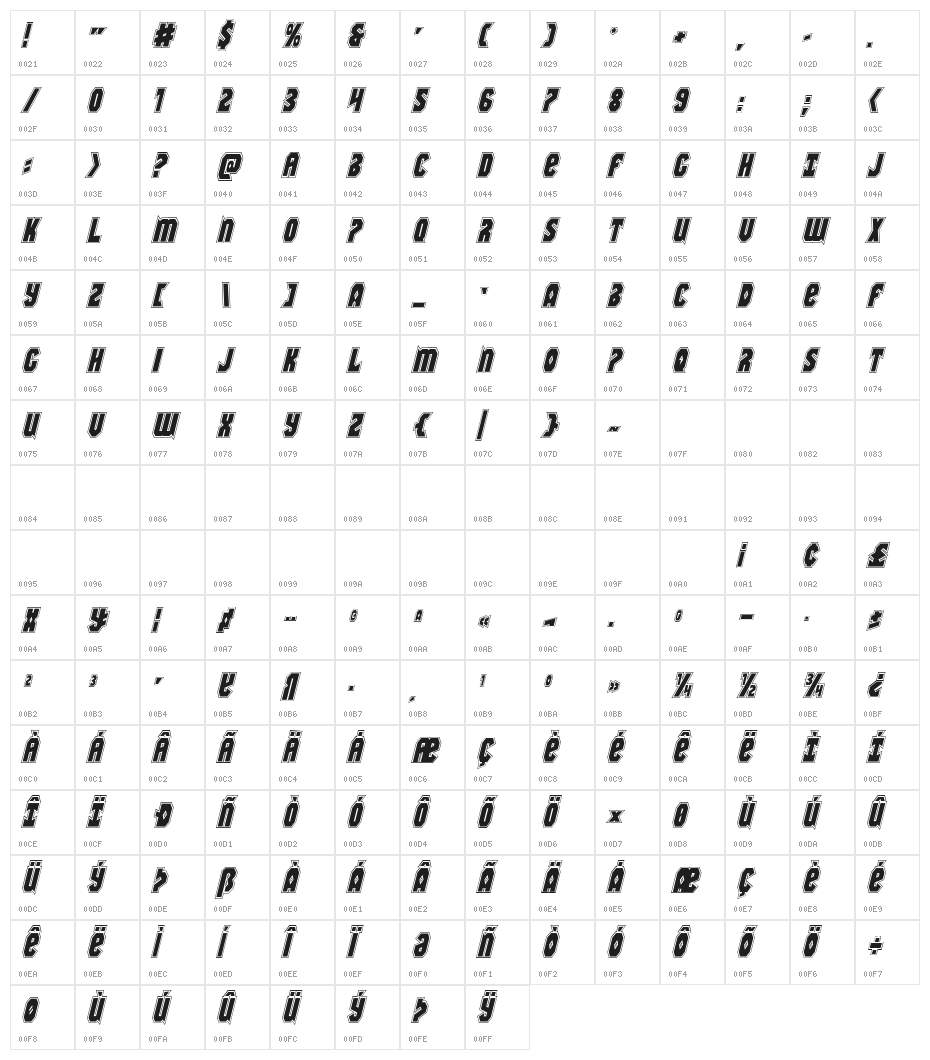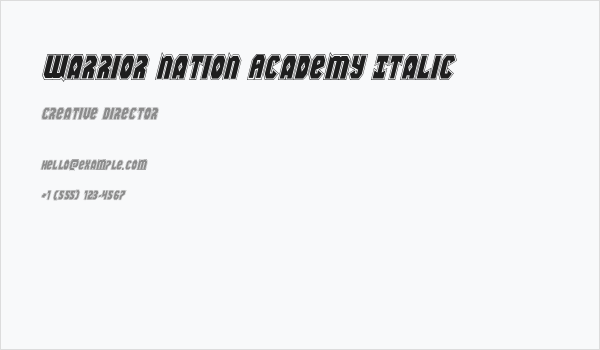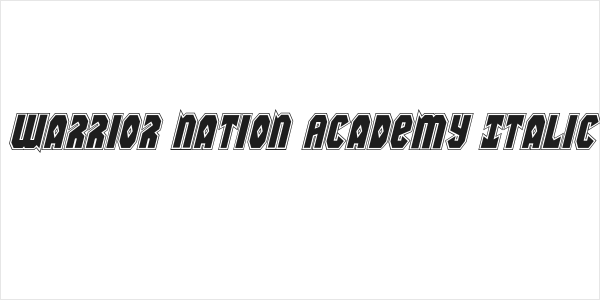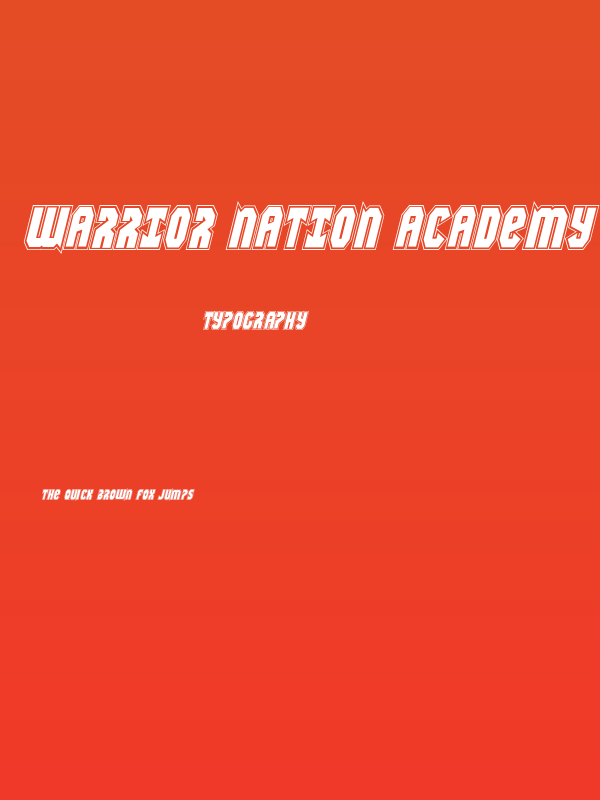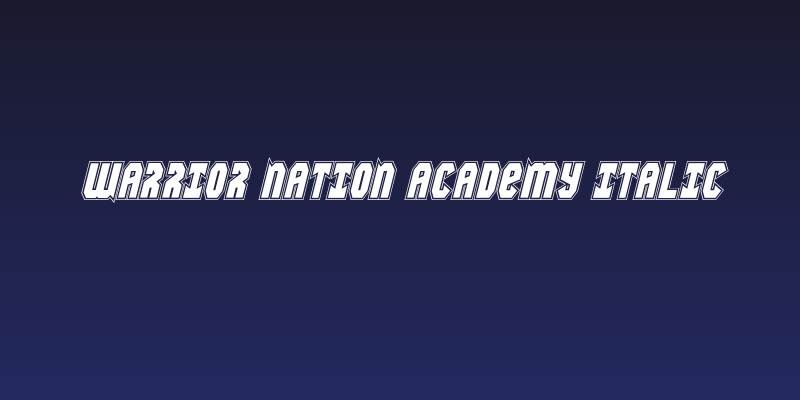
Warrior Nation Academy Italic Font
Warrior Nation Academy Italic Description
This font features a bold, dynamic style with a strong presence. The characters are designed with sharp, angular edges and a three-dimensional effect, giving them a powerful and impactful look. The italic slant adds a sense of motion and energy, making it ideal for attention-grabbing designs. The font includes both uppercase and lowercase letters, numbers, and a variety of special characters, all maintaining a consistent style. The thick strokes and outlined design enhance its visibility, making it suitable for various display purposes.
| Proposed Projects | Ideal for sports branding, event posters, video game titles, and dynamic advertising campaigns. |